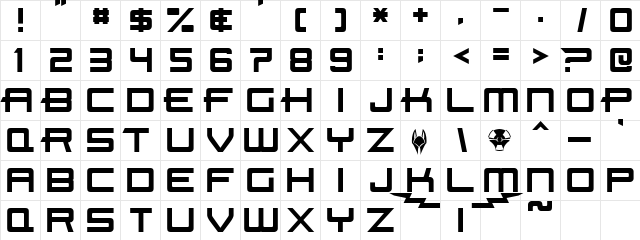
Beast Machines Normal
Design Context for Beast Machines Typeface
Beast Machines is a composed and adaptable typeface that performs quietly and consistently across a wide range of design contexts.